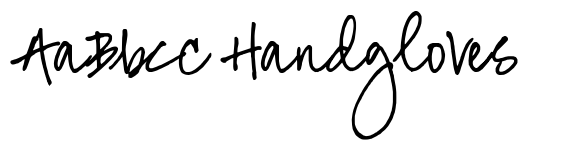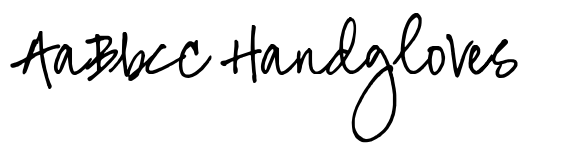
FG Jasmine
von YOFF
Die Schriftfamilie FG Jasmine wurde von Ellinor Maria Rapp entworfen und von YOFF veröffentlicht. FG Jasmine enthält 3 Stile und Familienpaketoptionen.
FG Jasmine is so pretty! I use it all the time for possible and impossible things just to see it. This font contains two fonts - the intention is to combine the two to get a true handwritten effect, the lower case is different in both fonts. Smashing!
Designer: Ellinor Maria Rapp